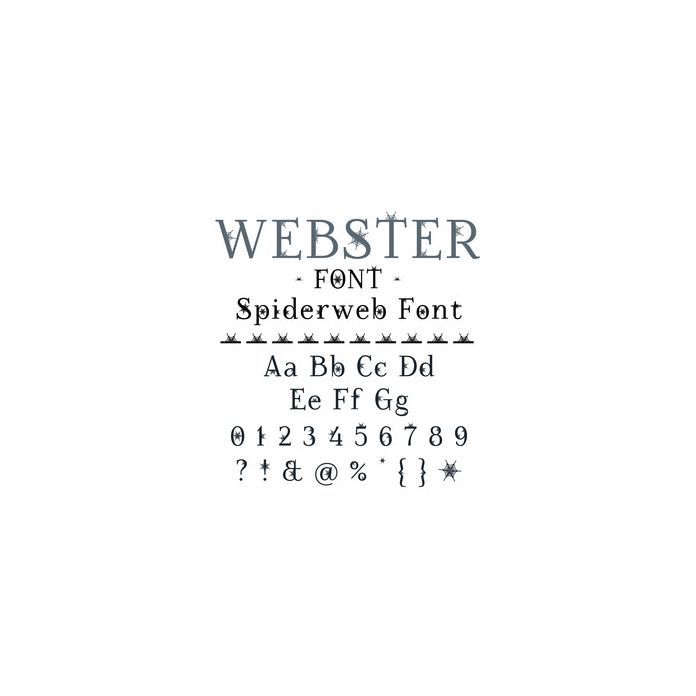
Webster Decorative Spiderweb Font. Hand drawn Halloween font, including upper and lower case letters, numbers and glyphs. For more design ideas, coordinating designs & products and inspiration, please visit my blog http://www.sarahhurleyblog.com